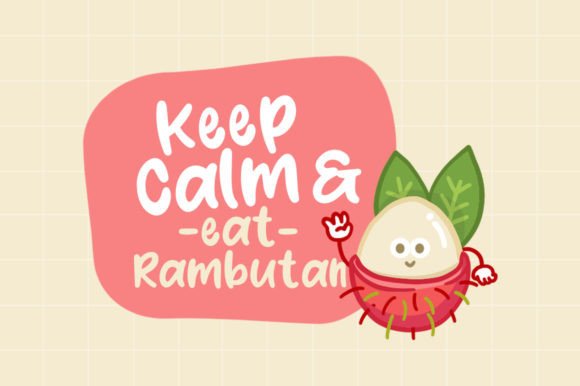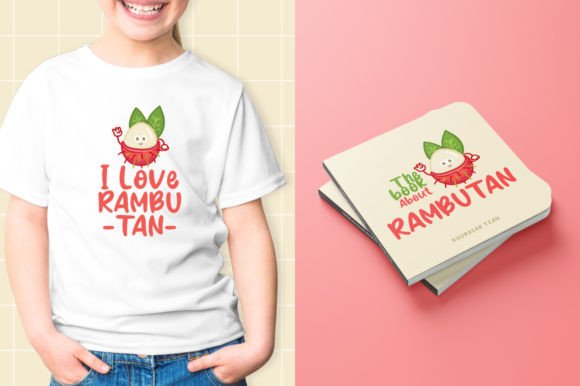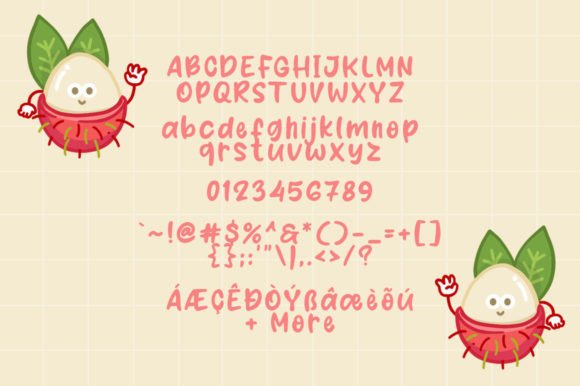
Introduction to Rambutan Days Font
Rambutan Days is a fun and cool display font.
Whether you use it for cartoon-related designs, childrenโs games, or just any creation that requires a playful touch, this font is the perfect choice for your designs .
Key Features of Rambutan Days Font